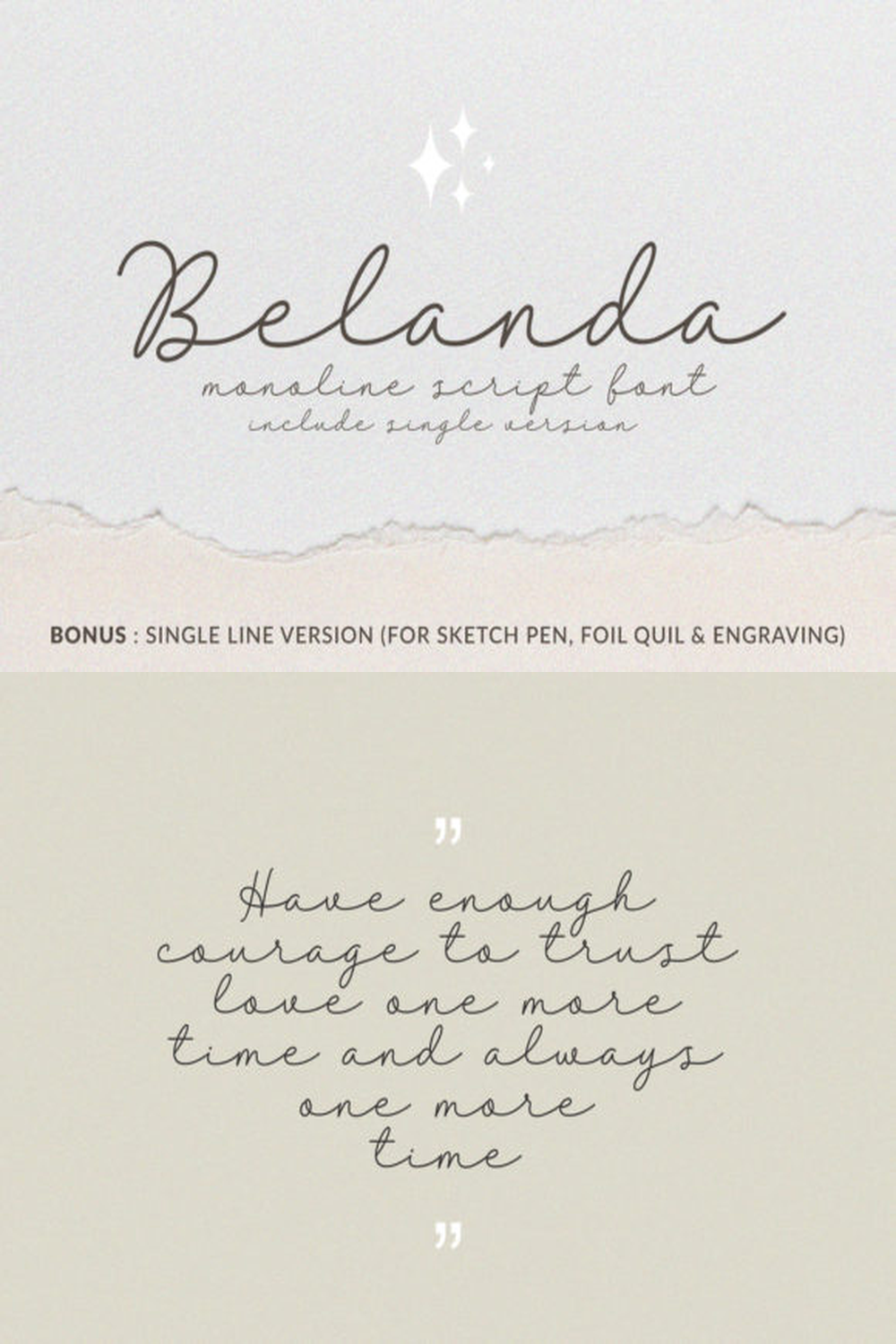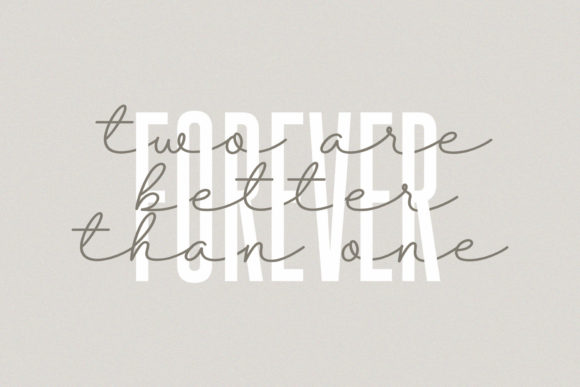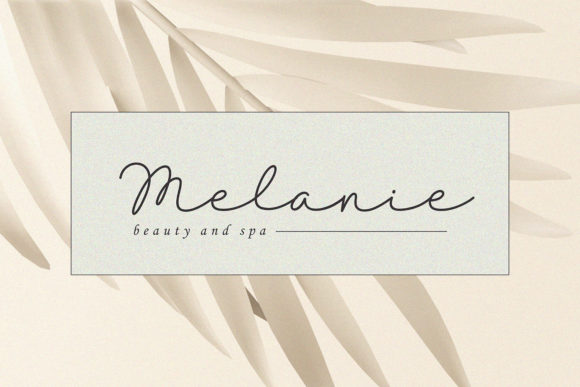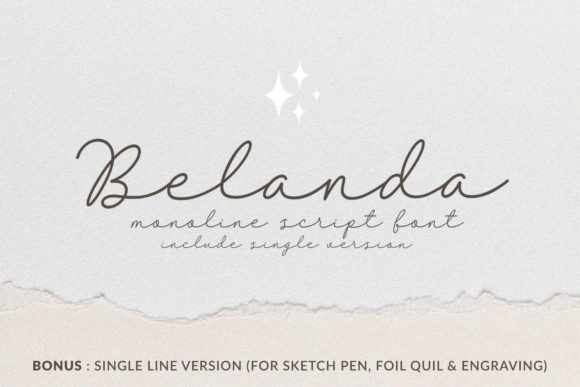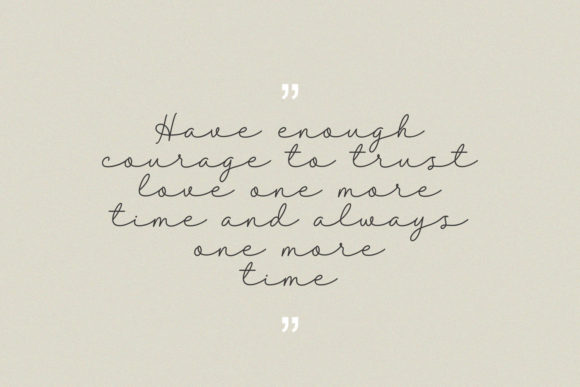
Belanda Font: Elegant Script for Wedding Invitations & Cricut Crafts
About the Belanda Font
Add a touch of class to your work with the Belanda Font, a truly exceptional typeface. Belanda is a stylish and vintage styled script font. This gentle font will look gorgeous on a variety of design ideas. It will add a joyful and romantic touch to each of your projects!
Belanda Font Usage Examples